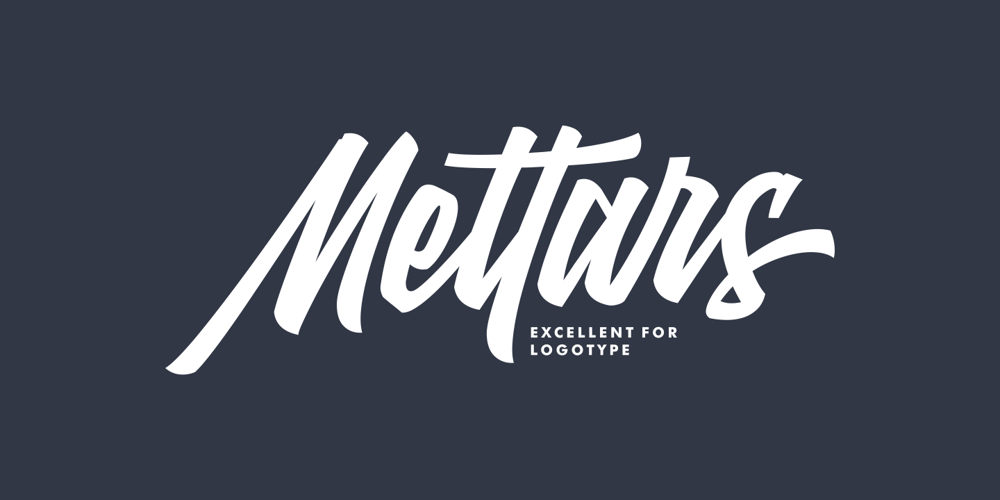
Mettars
Mettars font
Mettars Font Family was designed by Adil Budianto and published by Surotype. Mettars contains 1 styles and family package options. A script typeface inspired by the signature bold, we created to provide ease in completing the work as typography, logotype, poster, title, T-shirts and other creative projects. Created in 2017 with more than 300 glyphs, it’s rich of alternative characters, ligature and other cool features, so it is very easy to use for it.